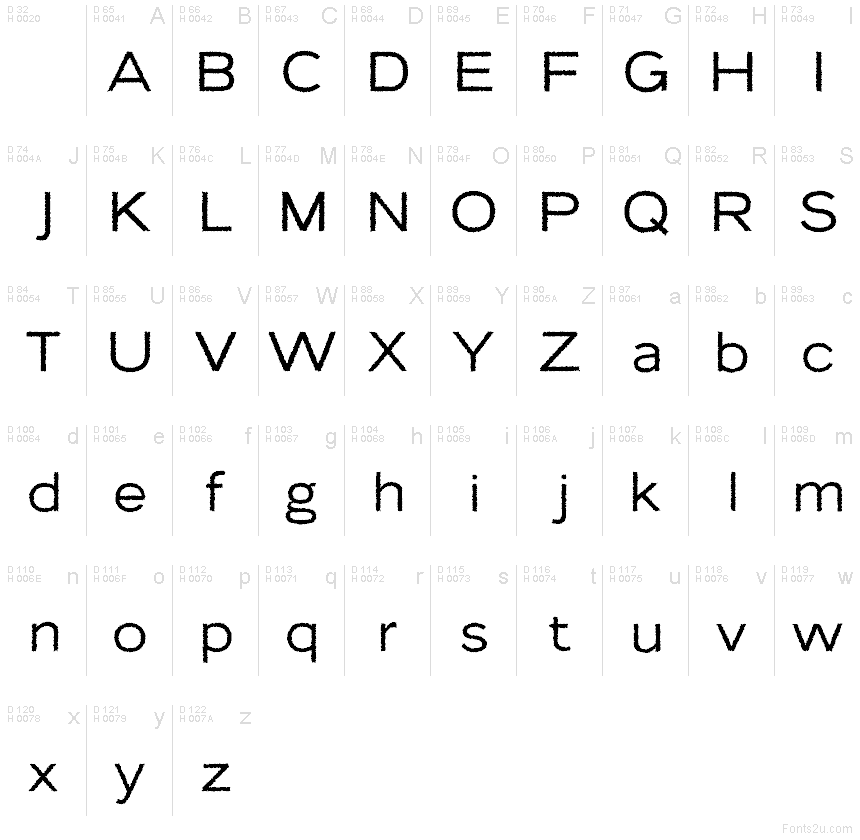
Lumend Rough Regular Demo
Lumend Rough font by Craft Supply Co. is a display typeface with an eroded style. This free display font features thin to medium edges with some cracks and spots to convey a slightly vintage and retro image. The natural-looking roughness of this gorgeous font can’t be achieved through digital effects, so it’s worth your consideration.
The best use cases for this typeface include packaging design, poster titles, header banners, business cards, logos, badge design, apparel designs, social media creatives and more.”